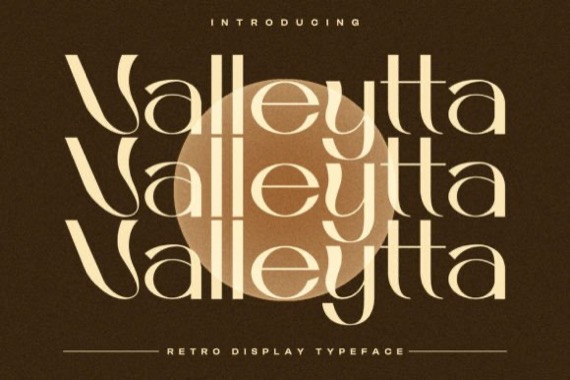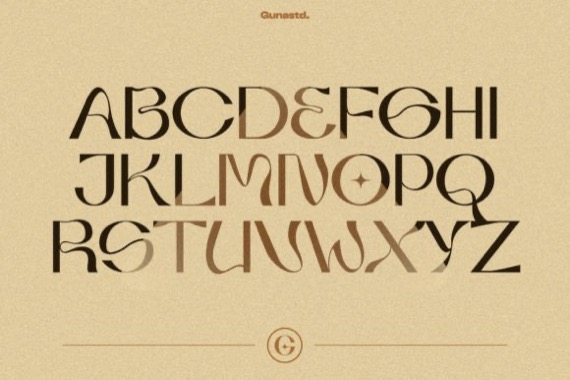
Valleytta is a classy and retro Display font that was created and released by Gunastudio. It will be perfect for many different projects such as logos & branding, invitation, poster, flyer, wedding designs, social media posts, advertisements, product packaging, product designs, label, photography, watermark, special events or movie poster title just like what I did on the preview above.
Valleytta Retro Display Font